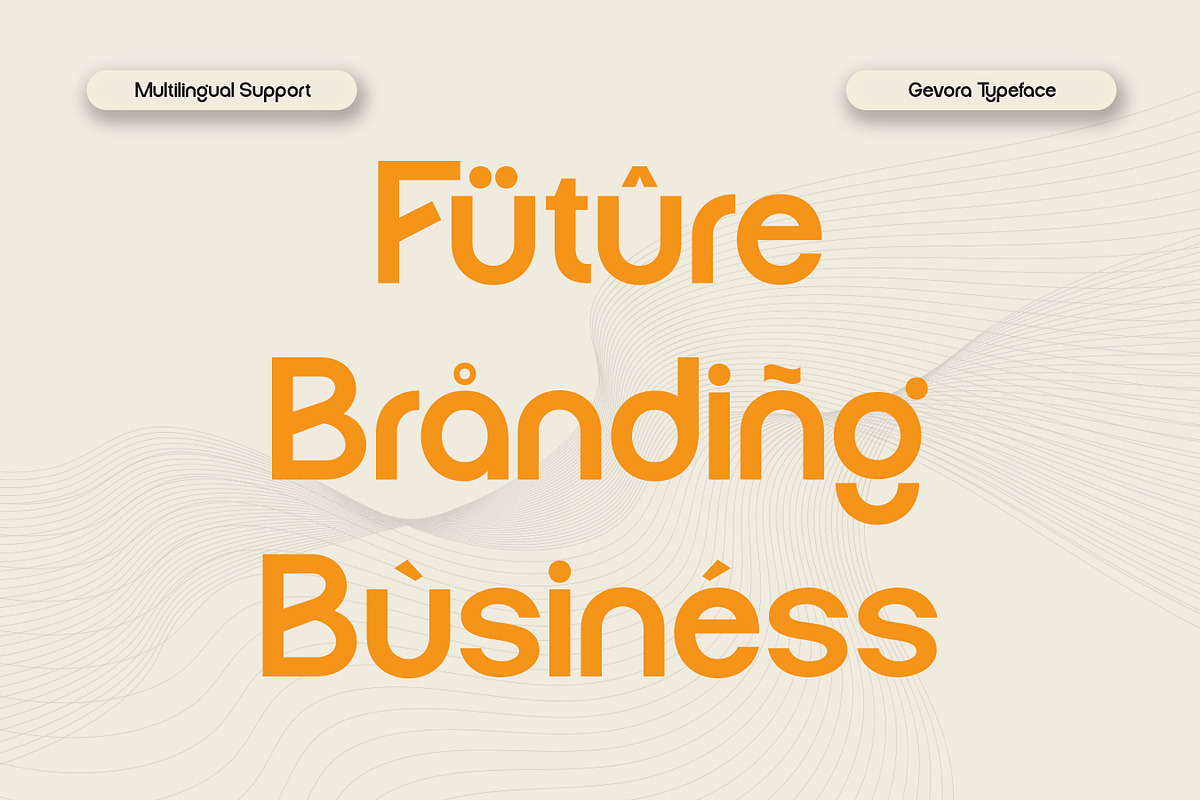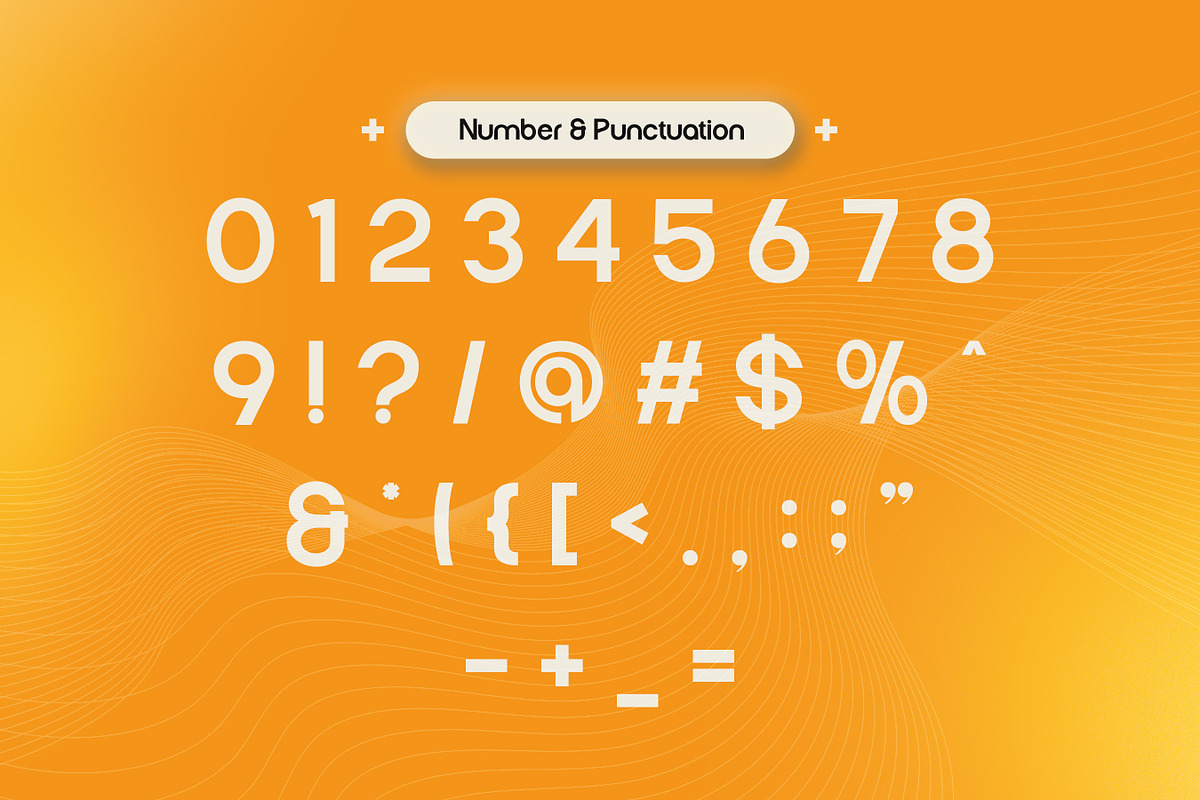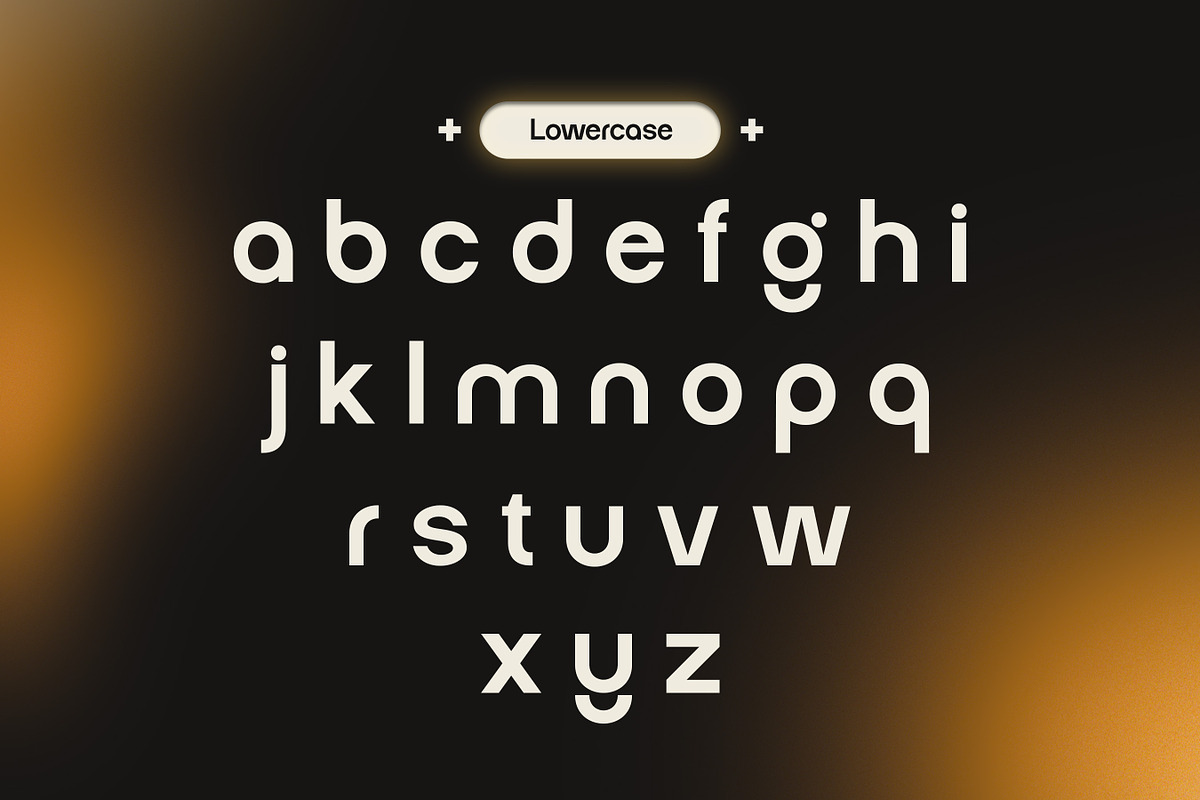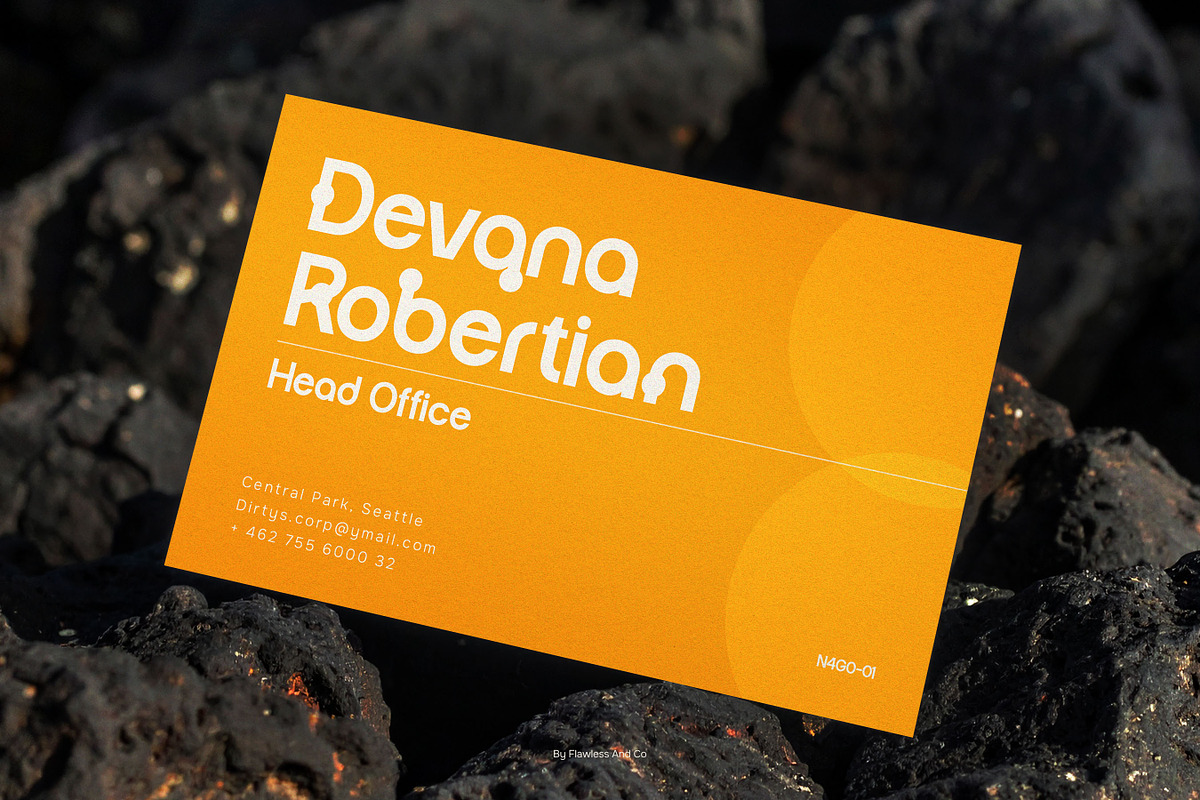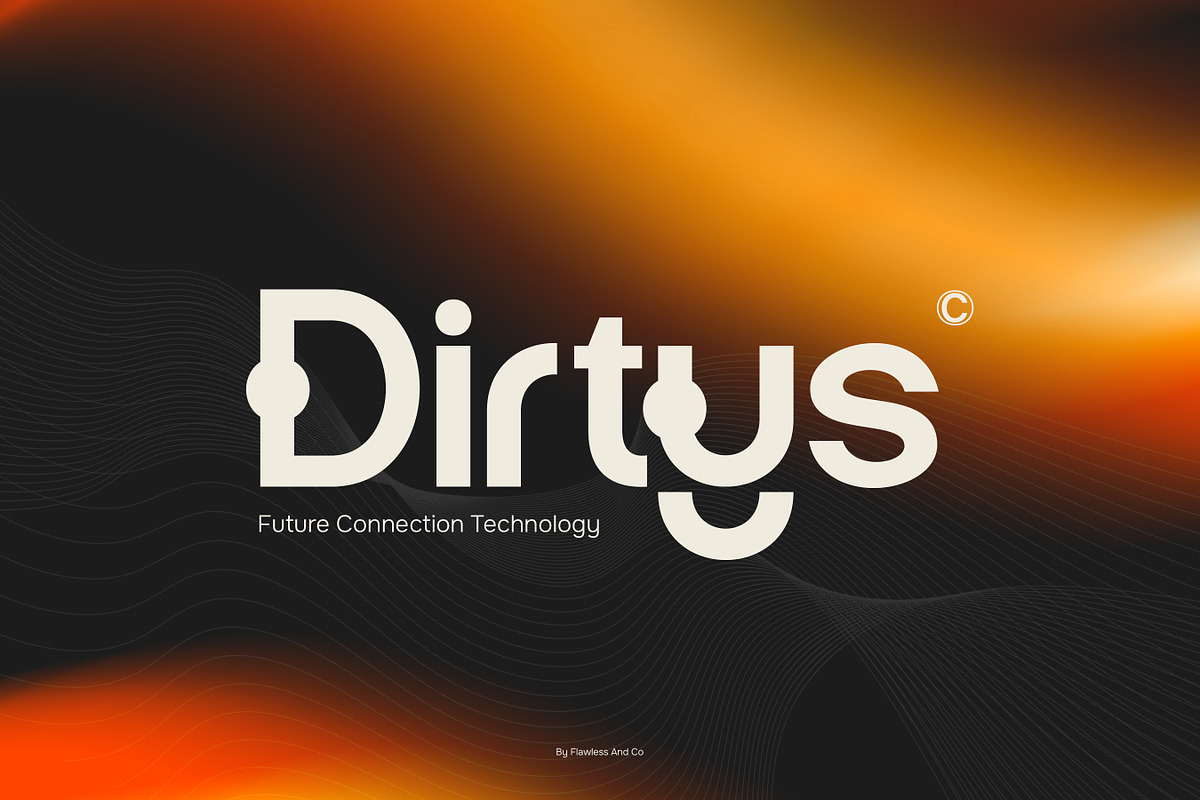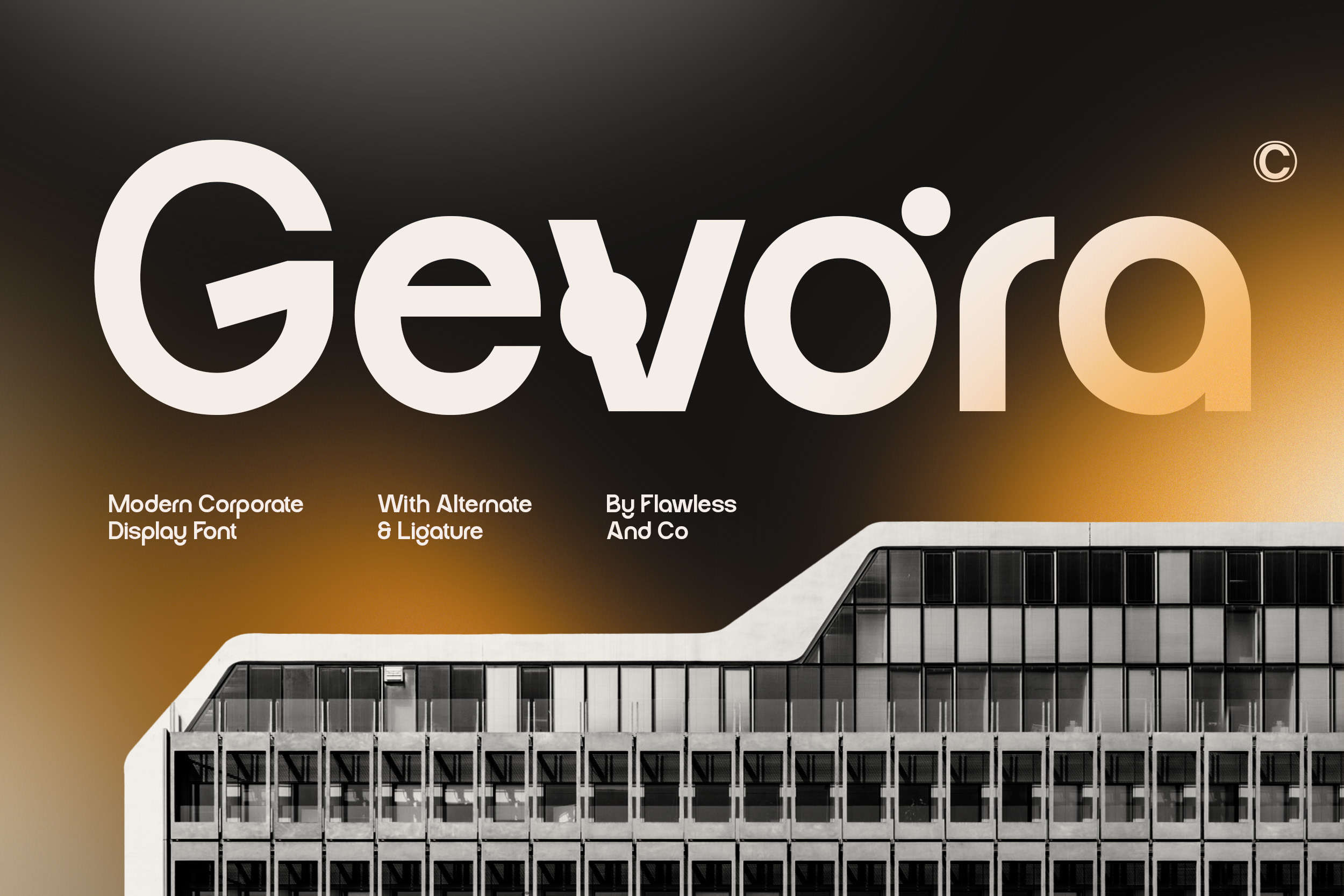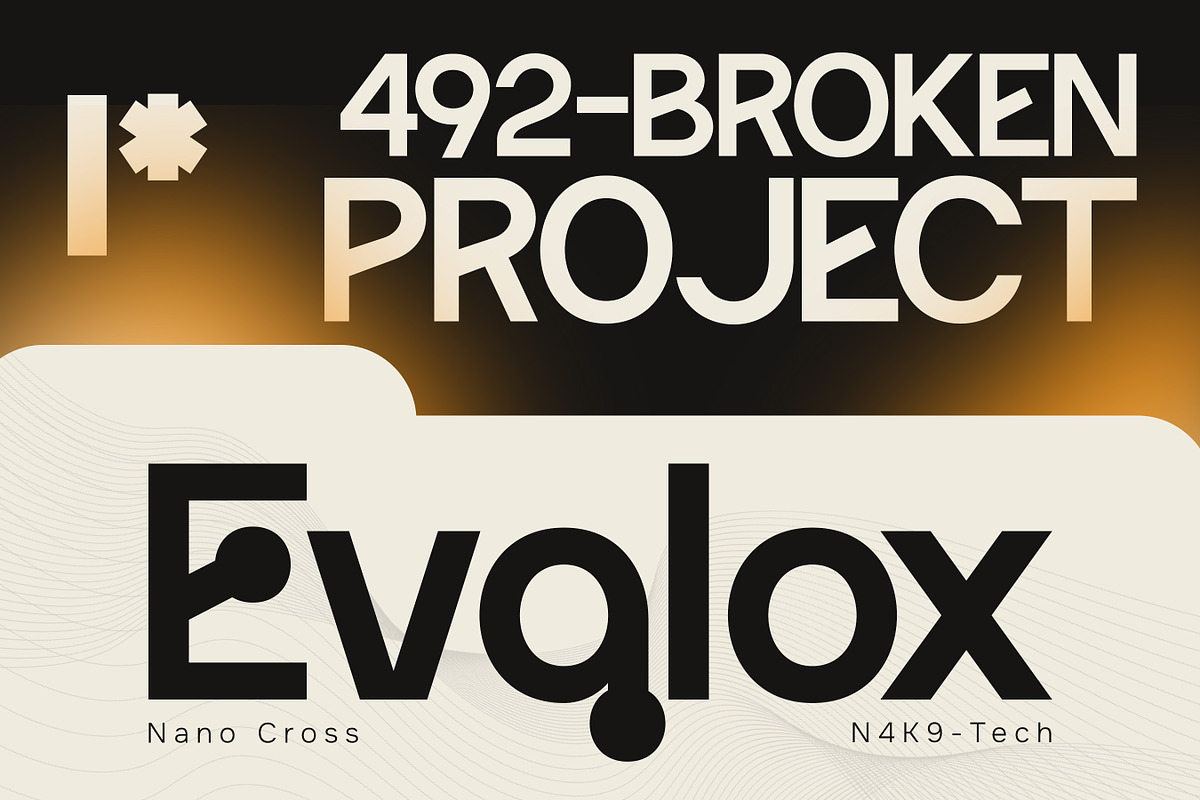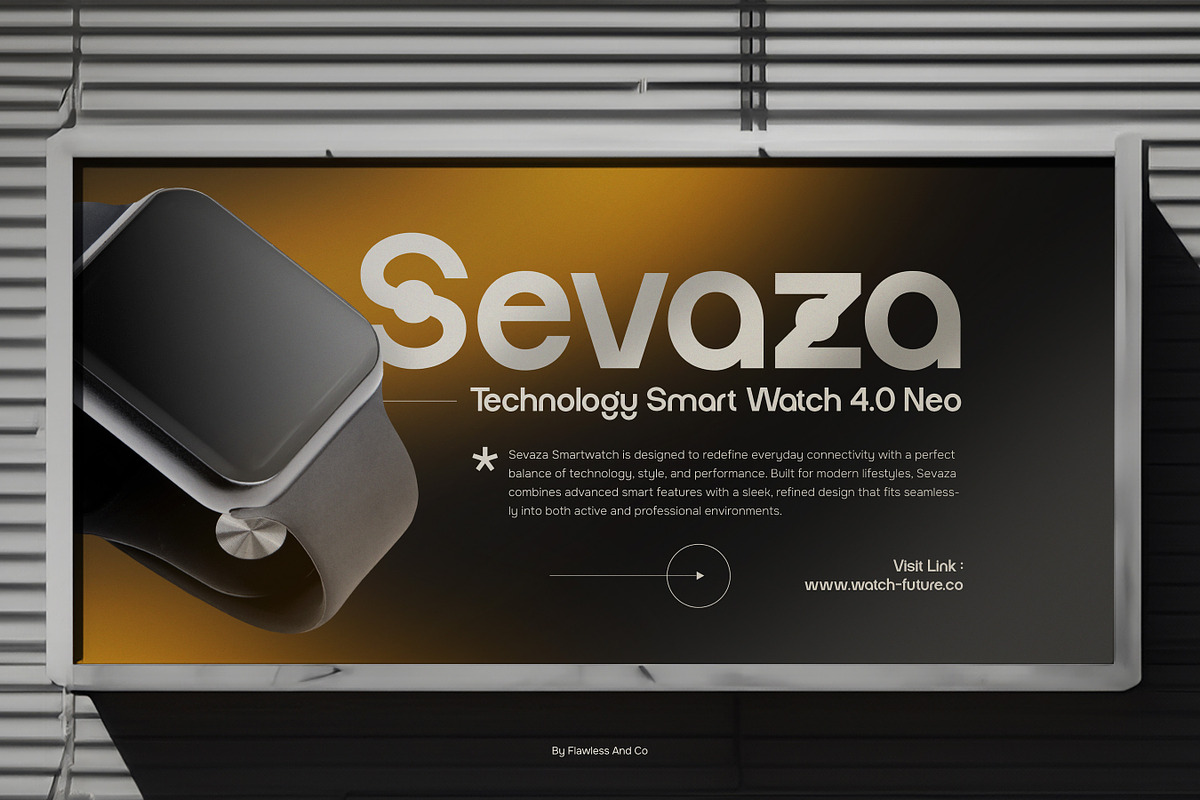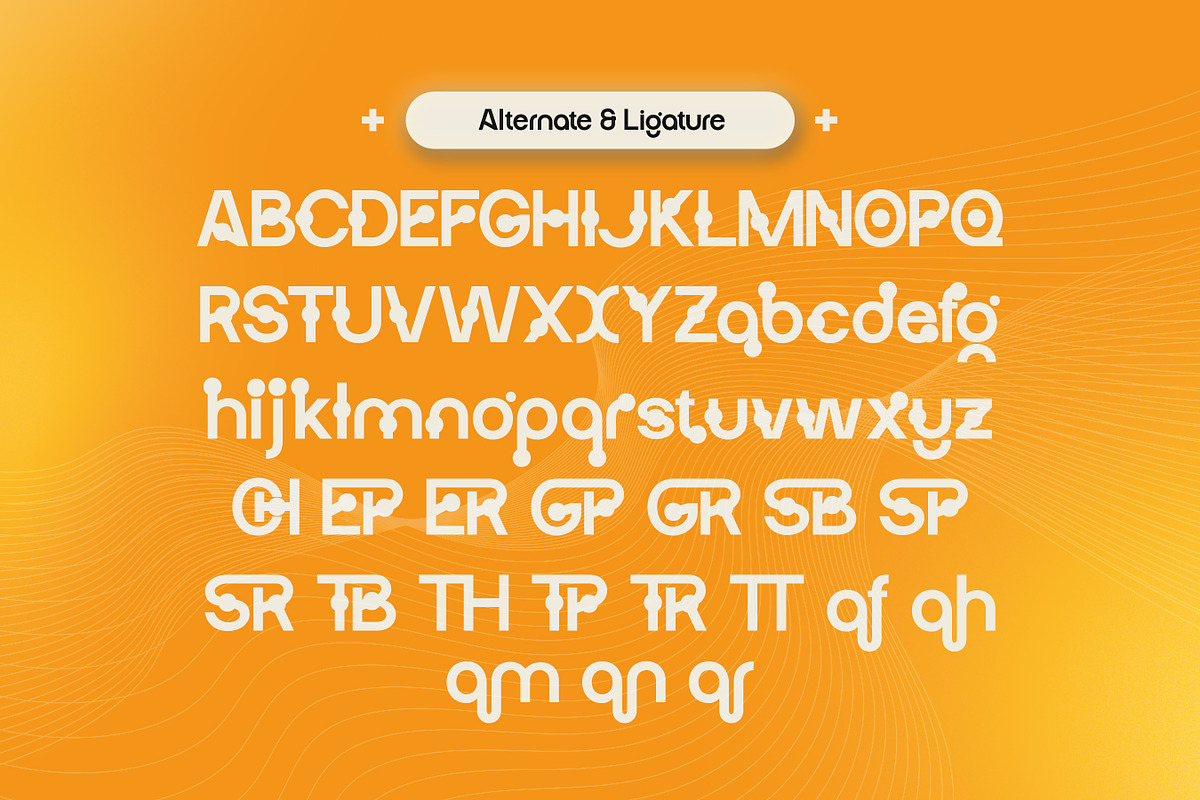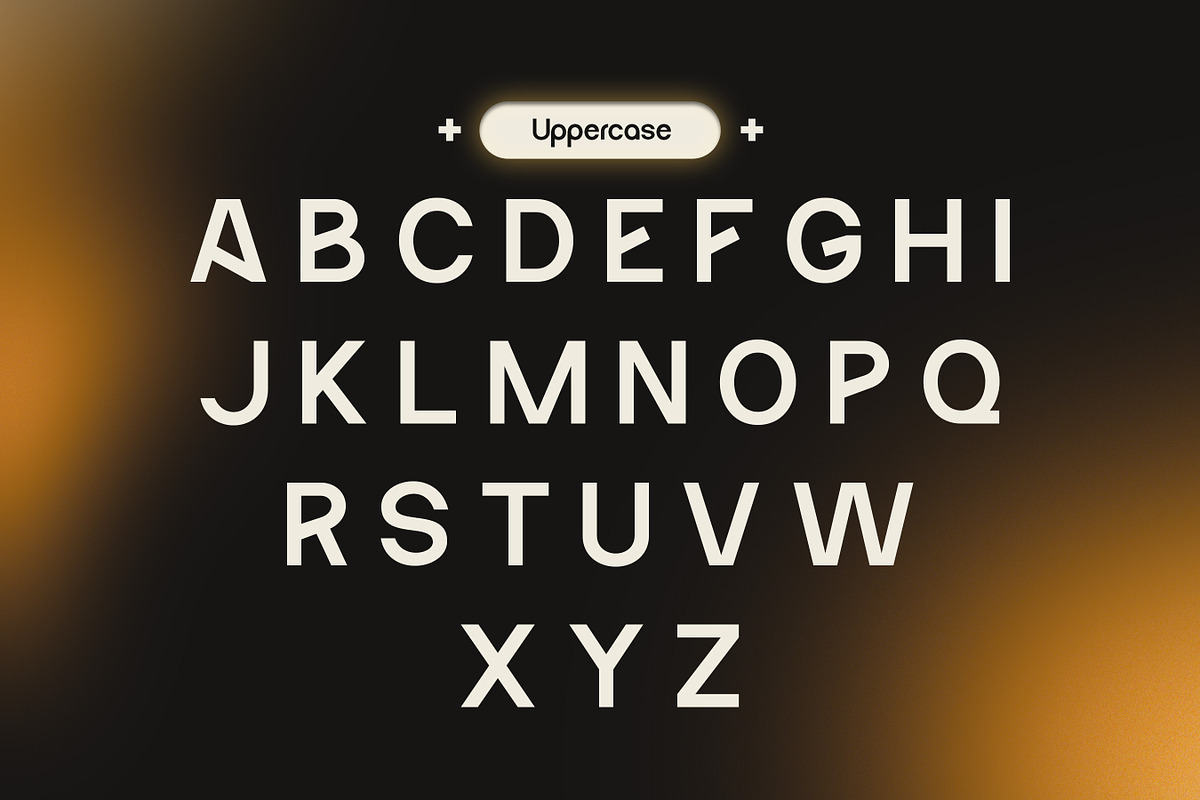
Gevora - Modern Display Font
Gevora is a modern corporate display font that reflects precision, clarity, and a forward-thinking business aesthetic. Designed with clean lines and a refined structure, Gevora offers a polished and authoritative look that fits perfectly within professional and corporate environments. Its contemporary design balances simplicity with presence, allowing it to stand out in headlines while remaining elegant and controlled.
Who Should Use Gevora?
Gevora is ideal for designers, entrepreneurs, and companies seeking a modern and dependable typeface. It’s especially suited for projects that require a clean, structured, and business-oriented visual identity.
Suitable For:
- Corporate and business branding
- Logo and identity design
- Company profiles and presentations
- Website and app interfaces
- Marketing and promotional materials
- Editorial and publication design
- Social media content
- Professional typography layouts